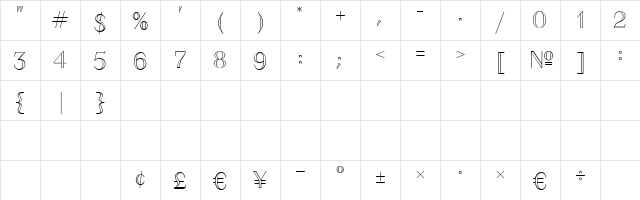
Numbers ValutaOpen Regular
Design Context for Numbers ValutaOpen Typeface
Numbers ValutaOpen takes a measured approach to typography — its balanced proportions and neutral character make it a reliable workhorse for both digital and print work.